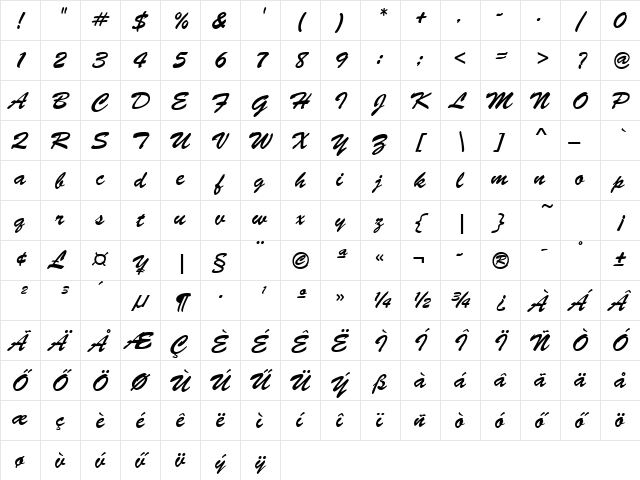
Hu_Brushnom Regular
Design Context for Hu_Brushnom
Hu_Brushnom flows with the natural rhythm of handwritten lettering, making it ideal for designs that call for warmth and personal expression.
Font Pairing: Combine Hu_Brushnom with a simple geometric sans for maximum contrast - the tension between flowing curves and clean structure is a classic typographic pairing.
Pro Tip: Use Hu_Brushnom for short runs of text - names, titles, or taglines. Extended body copy in script faces tires the eye quickly.